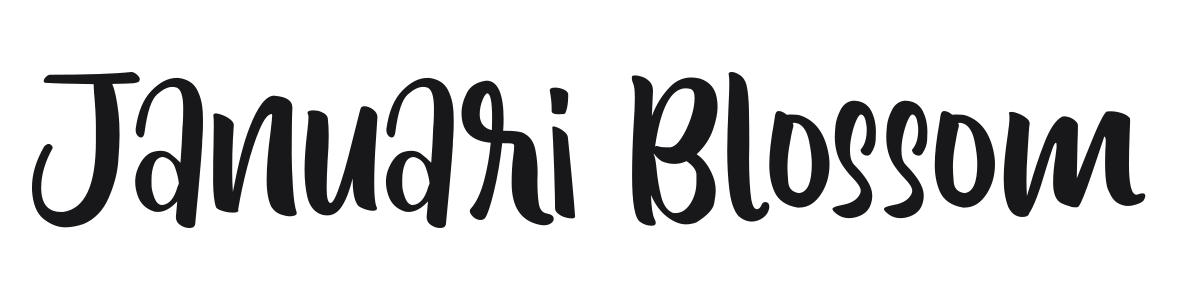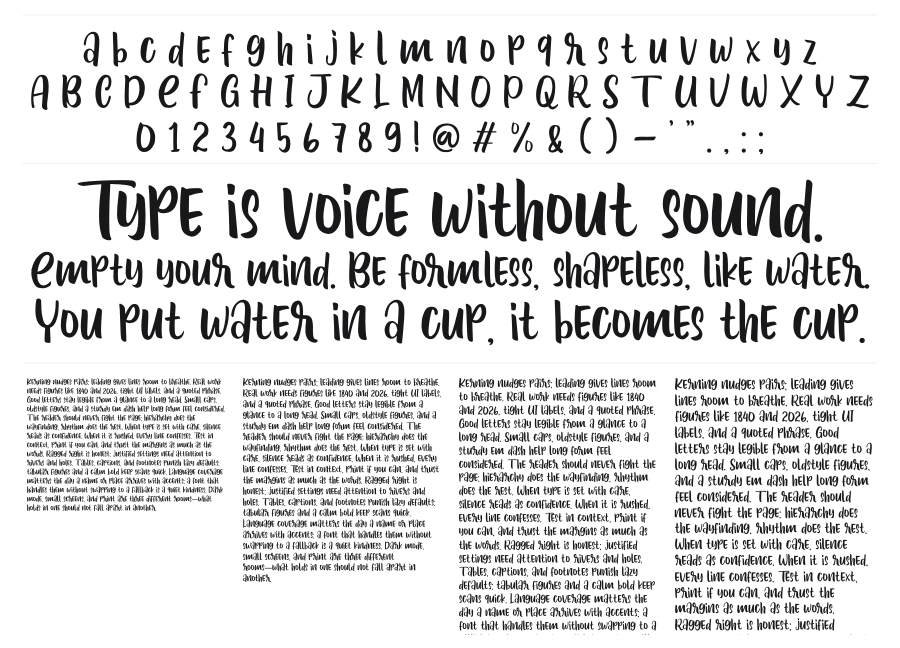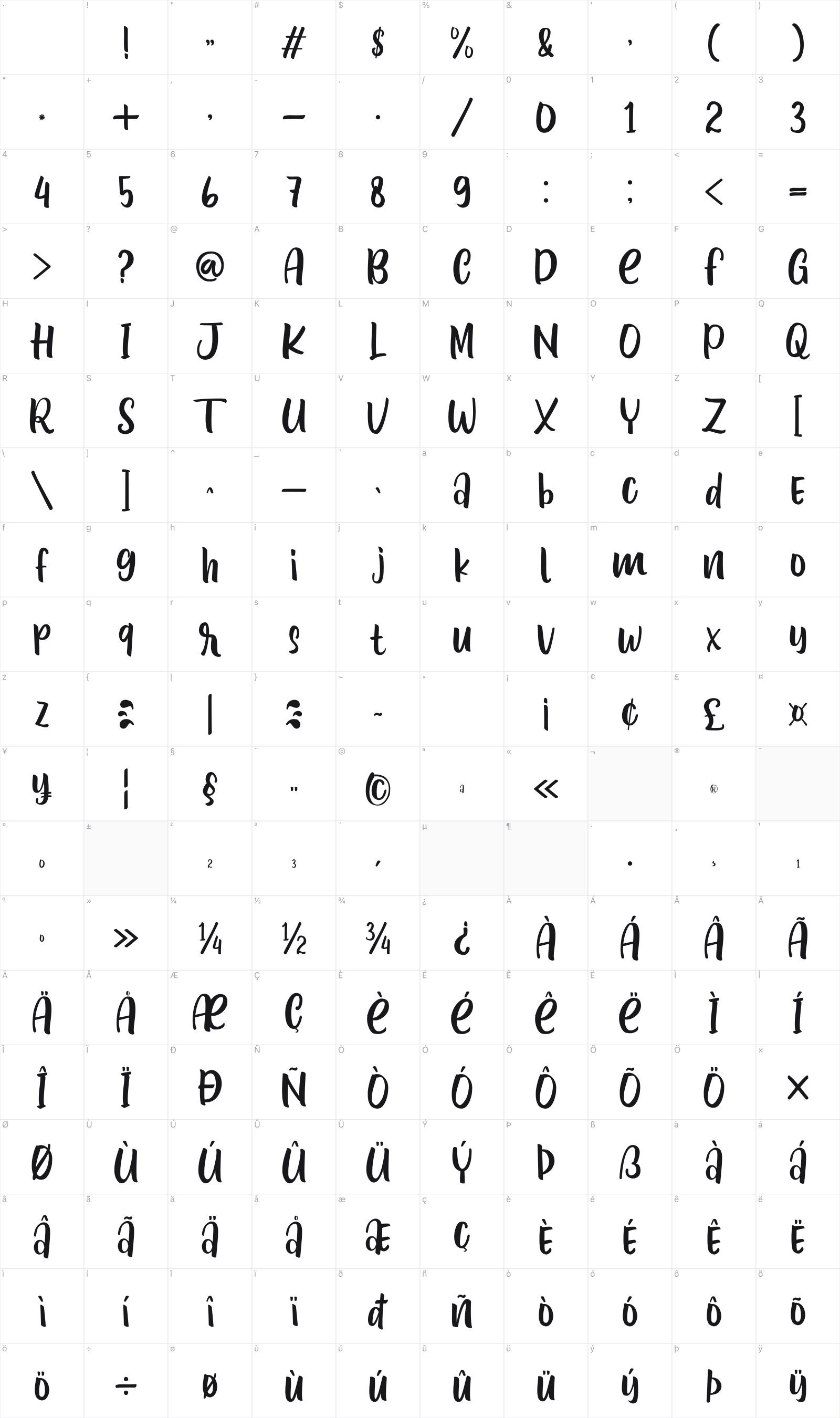
Januari Blossom
Januari Blossom is a bold upright brush script with the spontaneous energy of hand-lettering and a warm, approachable personality. Lively stroke contrast and naturally varied letterforms keep it feeling genuinely handmade rather than mechanical. It works well for packaging, social graphics, branding, and any project that needs a friendly, crafted touch.